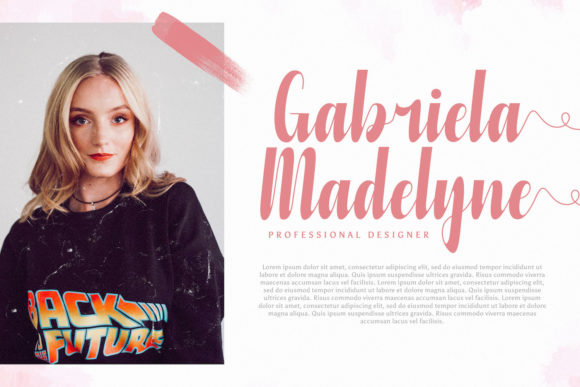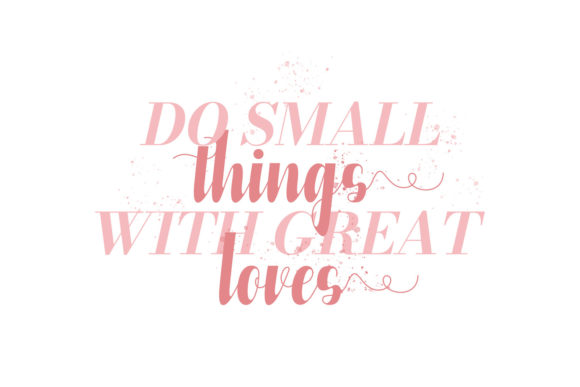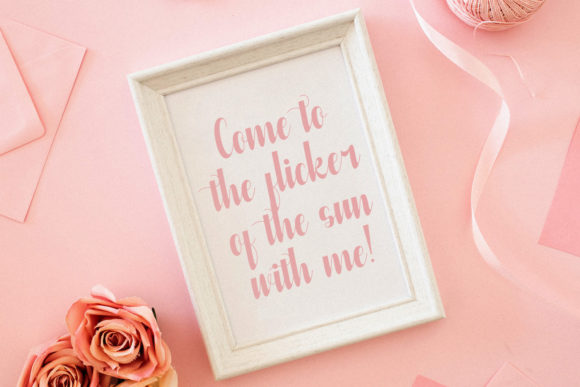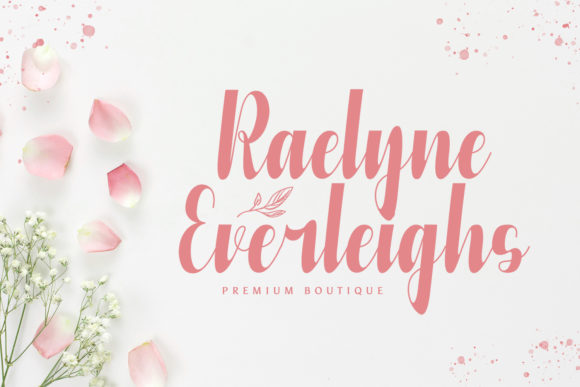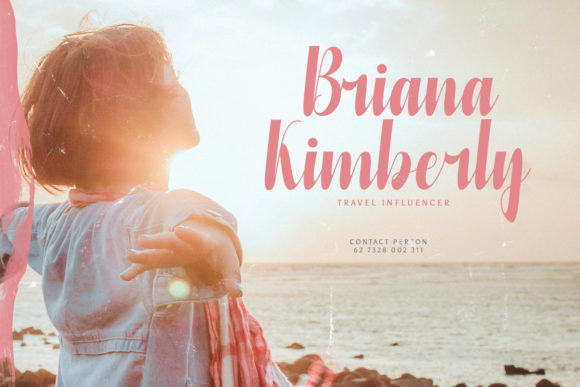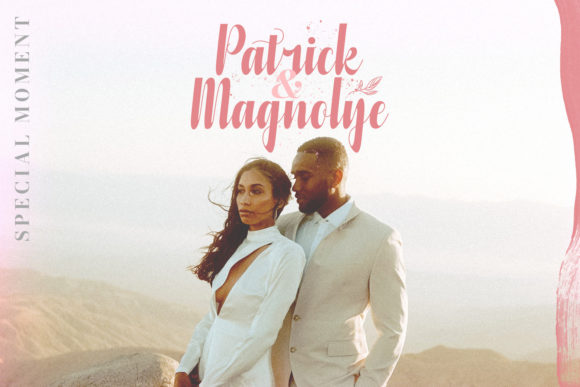
The Art of Bringing Ideas to Life: Introducing Azteciya Font
Have you ever been brainstorming, pouring your heart and soul into a creative project, only to feel like something is missing? The spark is there, but the visual representation just doesn’t quite match the vision in your mind. This is where the right font can make all the difference. For designers, the perfect font can be the key to unlocking a design’s full potential.
Enter Azteciya Font, a delicate and well-balanced handwritten font that’s as adaptable as it is beautiful. With its unique characters and elegant style, Azteciya Font is the perfect addition to any design. Whether you’re working on a branding project, a wedding invitation, or a blog post, Azteciya Font is sure to bring your ideas to life in a way that’s both timeless and trendy.
Azteciya Font Key Features
- Font Family: Azteciya Font is a unique, hand-drawn font family designed to evoke the spirit of ancient Mesoamerican civilizations.
- Font Size: Azteciya Font is available in 6 font weights, ranging from Light to Black, allowing for versatility in design applications.
- Resolution: Designed to work at high resolutions, ideal for large-scale signage, billboards, and digital displays.
- Unique Characteristics: Features intricate, hand-drawn details and ornaments, making it perfect for adding a touch of cultural authenticity to designs.
- Character Set: Includes a comprehensive character set, including Latin, Cyrillic, and Greek alphabets, as well as a range of punctuation and symbol glyphs.
A Review of Azteciya Font
Overall, I’m impressed with the Azteciya Font. It has a unique blend of ancient and mystical vibes that can be quite captivating. ✨ The font is perfect for designers who want to add a touch of elegance and sophistication to their projects. Here are some of the things that work well:
- Legibility: Azteciya Font is surprisingly easy to read, even at smaller font sizes.
- Uniqueness: The font’s design is unlike anything else out there, making it a great choice for designers who want to stand out.
- Flexibility: Azteciya Font works well in a variety of contexts, from titles to body text.
However, there are a few limitations that designers should be aware of:
- ⚠️ Limited character set: The font only includes a limited set of characters, which may not be suitable for projects that require a lot of special characters.
- ⚠️ Font size limitations: While Azteciya Font is legible at smaller sizes, it can become difficult to read at very small font sizes.
Overall, I would recommend Azteciya Font to designers who are looking for a unique and elegant font for their projects. While it has some limitations, the benefits far outweigh the drawbacks. With a little creative problem-solving, Azteciya Font can be a valuable addition to any designer’s toolkit.
Tips for Getting the Most Out of Azteciya Font
Azteciya Font is ideal for creating bold, dramatic text effects. To get the most out of it, try using it for:
- Emphasis and emphasis text
- Cultural or historical designs
Alternatives to Azteciya Font
Playfair Display is an elegant, luxurious serif font perfect for creating high-end designs. It’s ideal for use in titles, headings, and other prominent text elements. Compared to Azteciya Font, Playfair Display is more refined and sophisticated, making it a great choice for luxury brands and high-end marketing materials.
Great Vibes is a beautiful, handwritten font with a touch of elegance. It’s perfect for creating unique, eye-catching designs and is often used in advertising, packaging, and editorial content. Compared to Azteciya Font, Great Vibes is more cursive and fluid, making it a great choice for brands that want to convey a sense of warmth and approachability.
Pacifico is a modern, elegant script font that’s perfect for creating beautiful, high-end designs. It’s often used in branding, advertising, and packaging, and is ideal for use in titles, headings, and other prominent text elements. Compared to Azteciya Font, Pacifico is more refined and polished, making it a great choice for luxury brands and high-end marketing materials.
Q: Does Azteciya support Unicode characters, and are there any language support limitations?
Azteciya supports a wide range of Unicode characters, including Latin, Cyrillic, and Greek alphabets. However, its language support may be limited for complex scripts like Arabic, Chinese, or Japanese. You should check the font’s documentation or consult with the font vendor to determine the specific language support and any potential limitations.